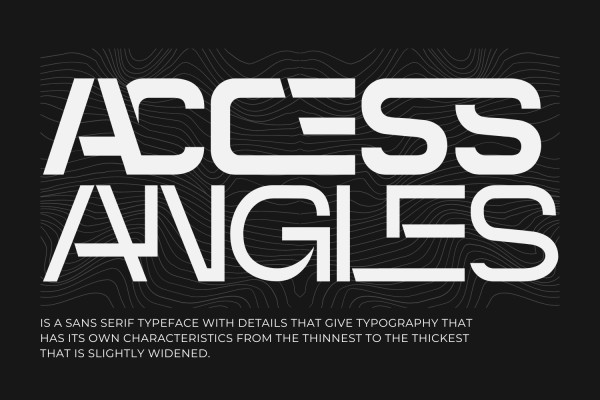
Access Angles Font
ACCESS ANGLES FONT is a sans based font with unique that will make your design looks futuristic and modern. A light and minimalist logo font family with unique lowercase that will make your logo and design looks more clean and simple. You can use this font for any purpose, especially to make logotype. You can mix and match the uppercase and lowercase to make your logo more readable. This font also have special alternates that will make your design more stand-out!
ACCESS ANGLES was built with OpenType features and includes 100 ligatures, alternate, numbers, punctuation, and it also supports other languages.
AC AD AL AN AR AS AT AU AV BE CA CE CH CO CT DE DI EA EC ED EE EL EM EN EP ER ES ET FE FO FR GE HA HE HI HO IE IC IL IN IO IR IS IT JU KE LA LE LI LL LO LY MA ME MI NC ND NE NG NO NT NS OC OF OM ON OO OP OR OT OU OW PA PR RA RD RE RI RO RS RT SE SH SI SO SS ST TA TE TH TI TO TR TT UM UN UR VE WI WO